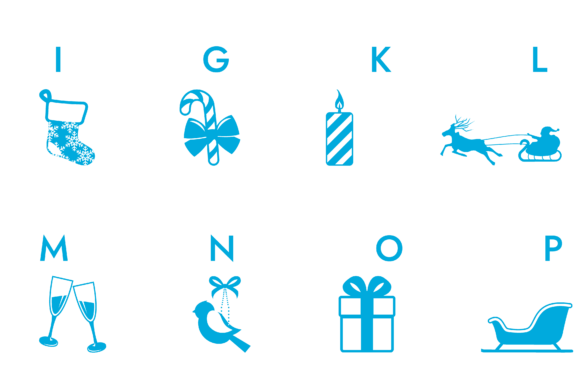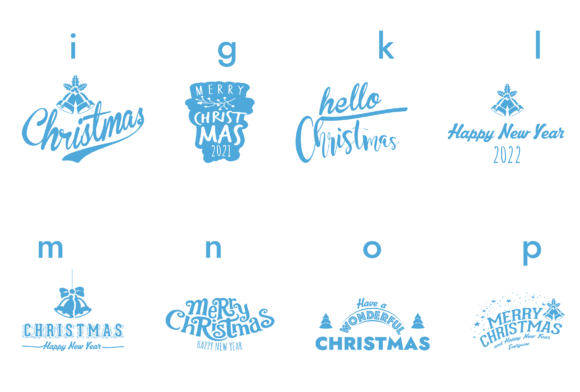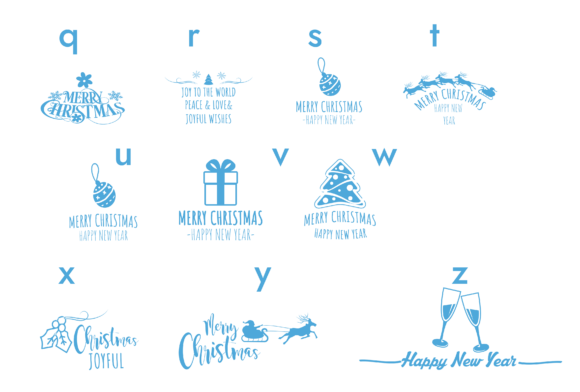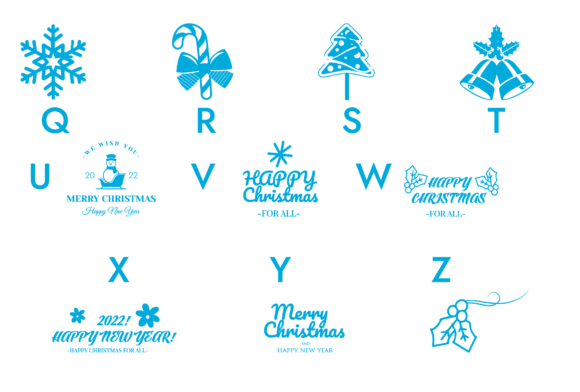
Christmas Doodle Font
About Christmas Doodle Font
“Christmas Doodle” is a fun and festive dingbats font that brings a playful and whimsical touch to your designs. With its collection of wintery and holiday-themed doodles, this font is perfect for adding a joyful and creative element to your favorite projects.
The unique and charming doodles in “Christmas Doodle” capture the essence of the holiday season. From cheerful snowmen and Santa Claus to twinkling stars and wrapped presents, this font offers a wide range of delightful symbols that instantly evoke a sense of wintery magic.
Adding “Christmas Doodle” to your designs is like sprinkling them with a touch of holiday cheer. Whether you’re working on crafts, digital designs, greeting cards, or festive presentations, this font can bring your creations to life. Its playful and whimsical nature lends a sense of joy and warmth to your designs, making them more engaging and appealing.
The beauty of “Christmas Doodle” lies in its versatility. Each doodle symbol can be easily incorporated into your designs by simply typing the corresponding letters or characters. This convenience saves you time and effort, allowing you to focus on the creative aspects of your project.
With “Christmas Doodle,” you have the freedom to explore different design possibilities. Mix and match the doodles, resize them, and arrange them in unique ways to create your own personalized holiday compositions. The hand-drawn style of the doodles adds a charming and organic feel to your designs, making them stand out and inviting smiles from viewers.
Whether you’re creating festive artwork, designing holiday-themed cards, or adding a touch of whimsy to your digital projects, “Christmas Doodle” is a font that will spark your creativity and infuse your designs with a sense of fun and excitement.
So, embrace the wintery and festive spirit with “Christmas Doodle” and watch as your designs come to life. Let this playful and delightful dingbats font be the perfect companion for your favorite projects, and see how it adds a touch of joy and whimsy to everything it touches.